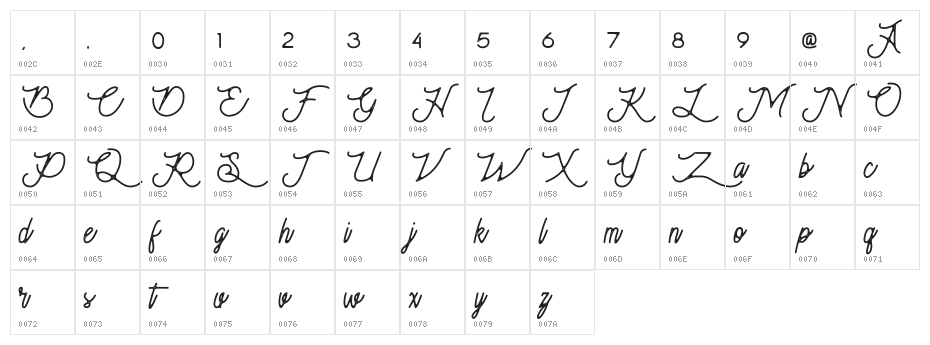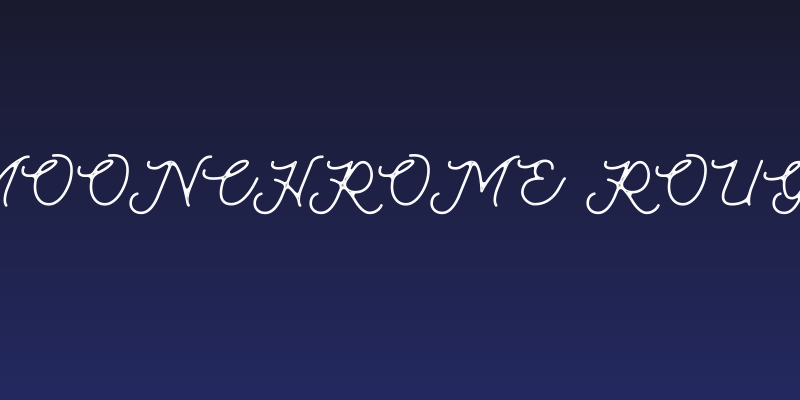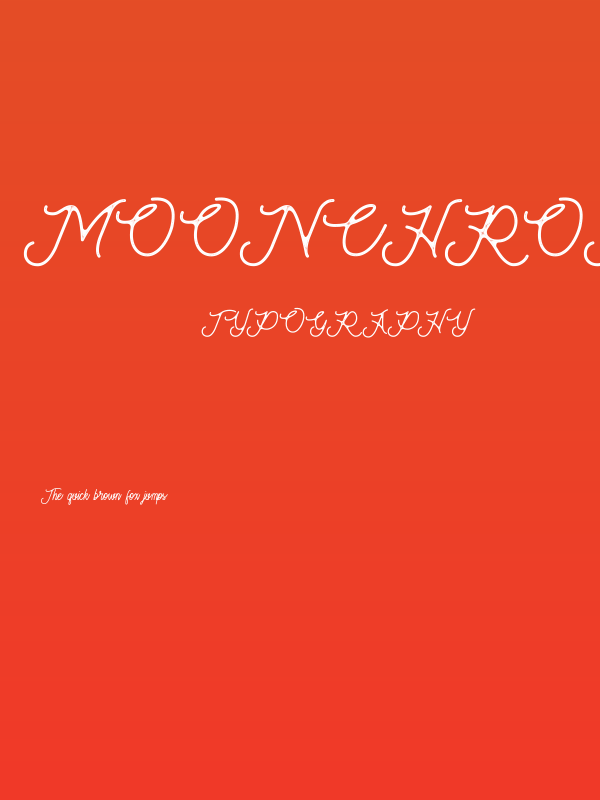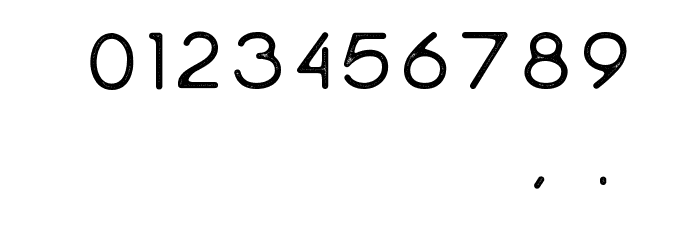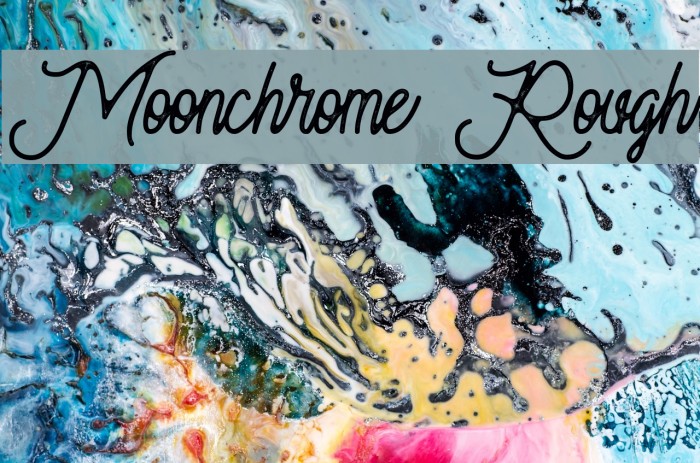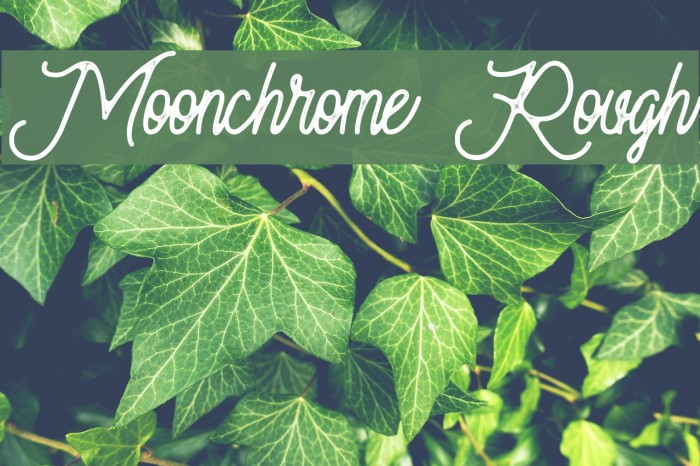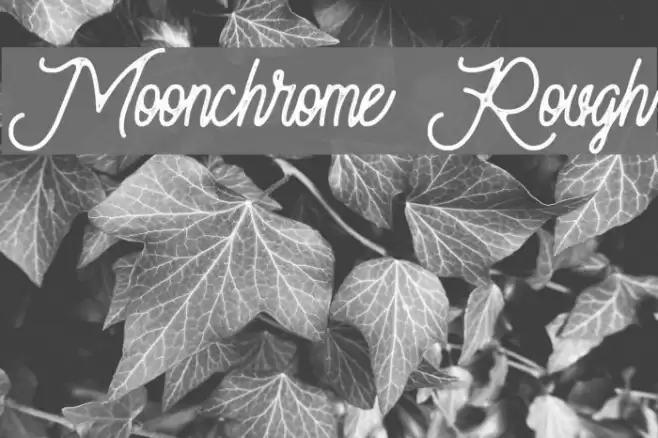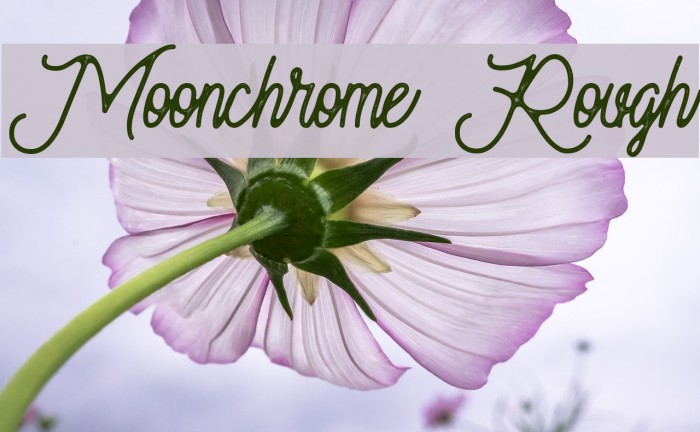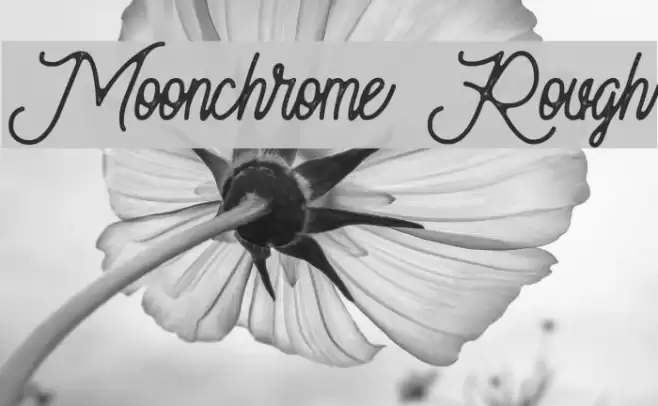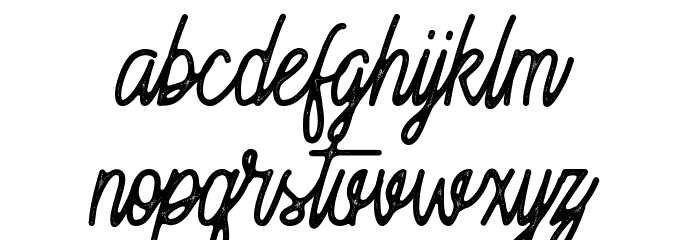
Moonchrome Rough Font
Moonchrome Rough Description
This font features a unique blend of elegance and boldness, with uppercase letters showcasing a delicate, cursive style that flows gracefully. The lowercase letters are more robust, with a thicker stroke that adds a sense of strength and modernity. The numbers are clean and straightforward, maintaining a consistent weight that complements the overall design. Special characters are minimalistic, aligning well with the font's aesthetic. This font's combination of cursive and bold elements makes it versatile for various design needs.
| Use Case | Logos, Headlines |
| Proposed Projects | Ideal for branding projects, wedding invitations, and fashion-related designs. |